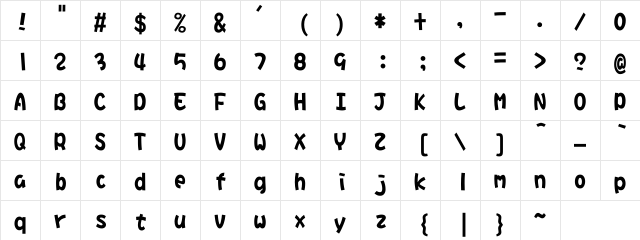
DFHaiBaoW9U-B5 Regular Font Preview
DFHaiBaoW9U-B5 Regular
Design Context for DFHaiBaoW9U-B5 Typeface
DFHaiBaoW9U-B5 offers clean, dependable letterforms without strong stylistic allegiance, making it a practical choice for designers who need flexibility.